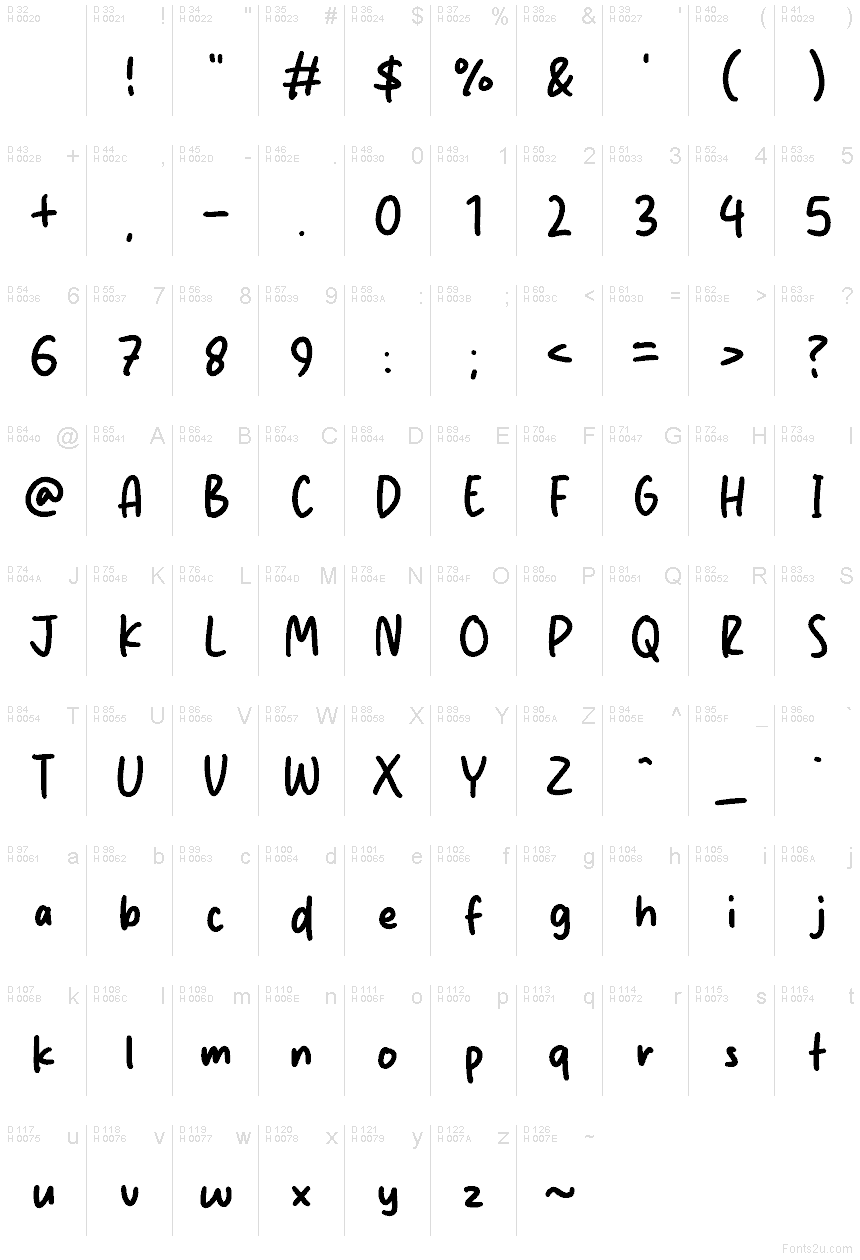
Goldy Coffee
Goldy Coffee font is a handwritten style typeface designed by MJType. Its casual aesthetic and organic flow contribute to a modern feel and personalized touch within the different compositions it decorates. A free handwritten font, Goldy Coffee resembles true delicate handwriting with imperfect lines creating an authentic design.
Use it for greeting cards or invitations, both printed and electronic, magazines covers, flyers, or social media posts and stories. Use it for logotypes both of brands and individuals jobs like start-up blogs with lifestyle or culinary themes. Or for smaller projects like artistic stamps or stickers.